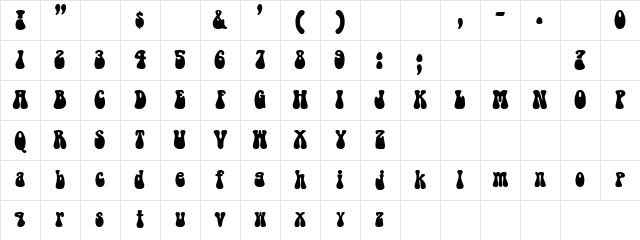
Action Hero Regular Free Font
Action Hero Regular
Designer: JupiterImages
Design Context for Action Hero
Action Hero is a composed and adaptable typeface that performs quietly and consistently across a wide range of design contexts.